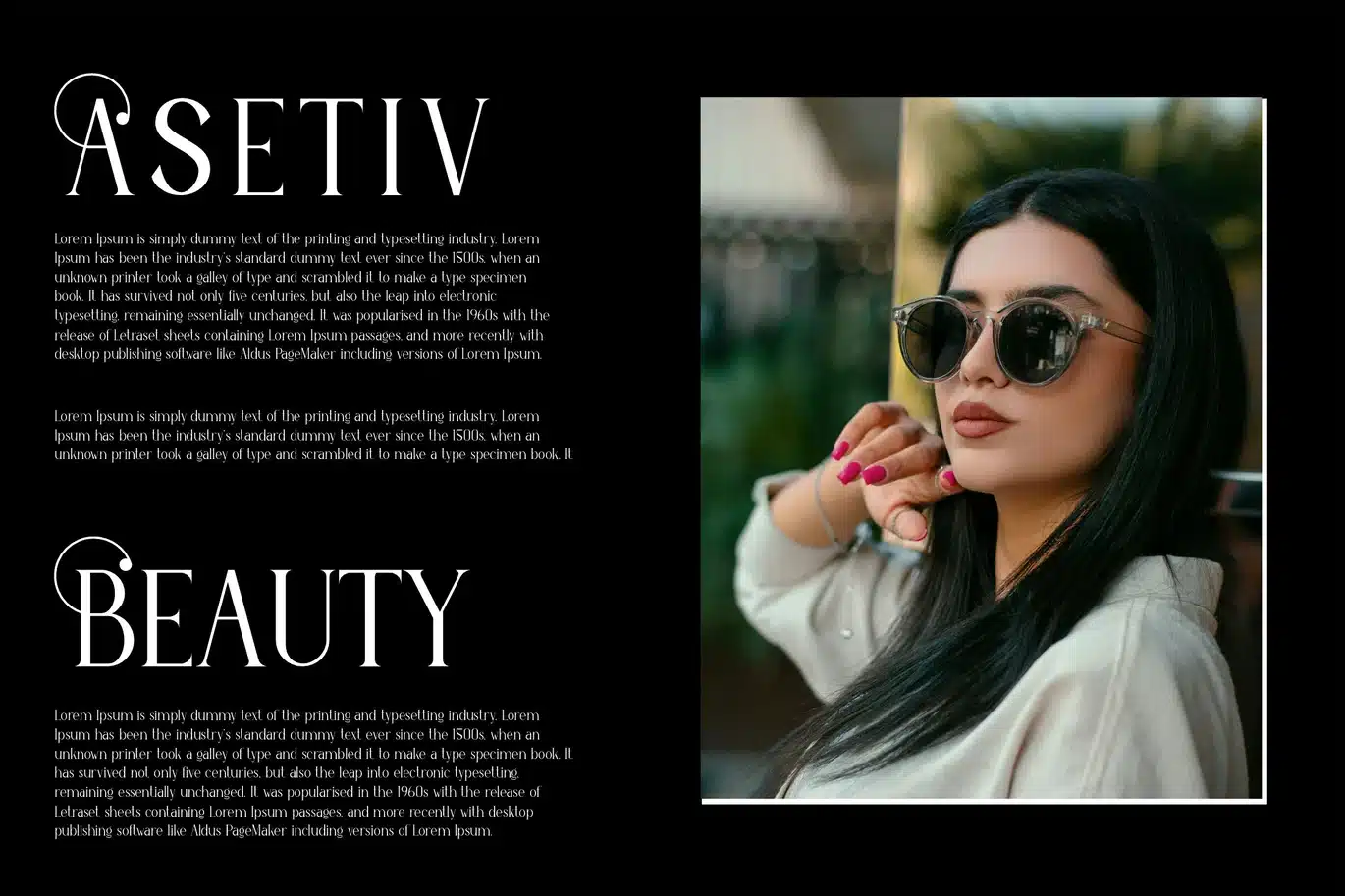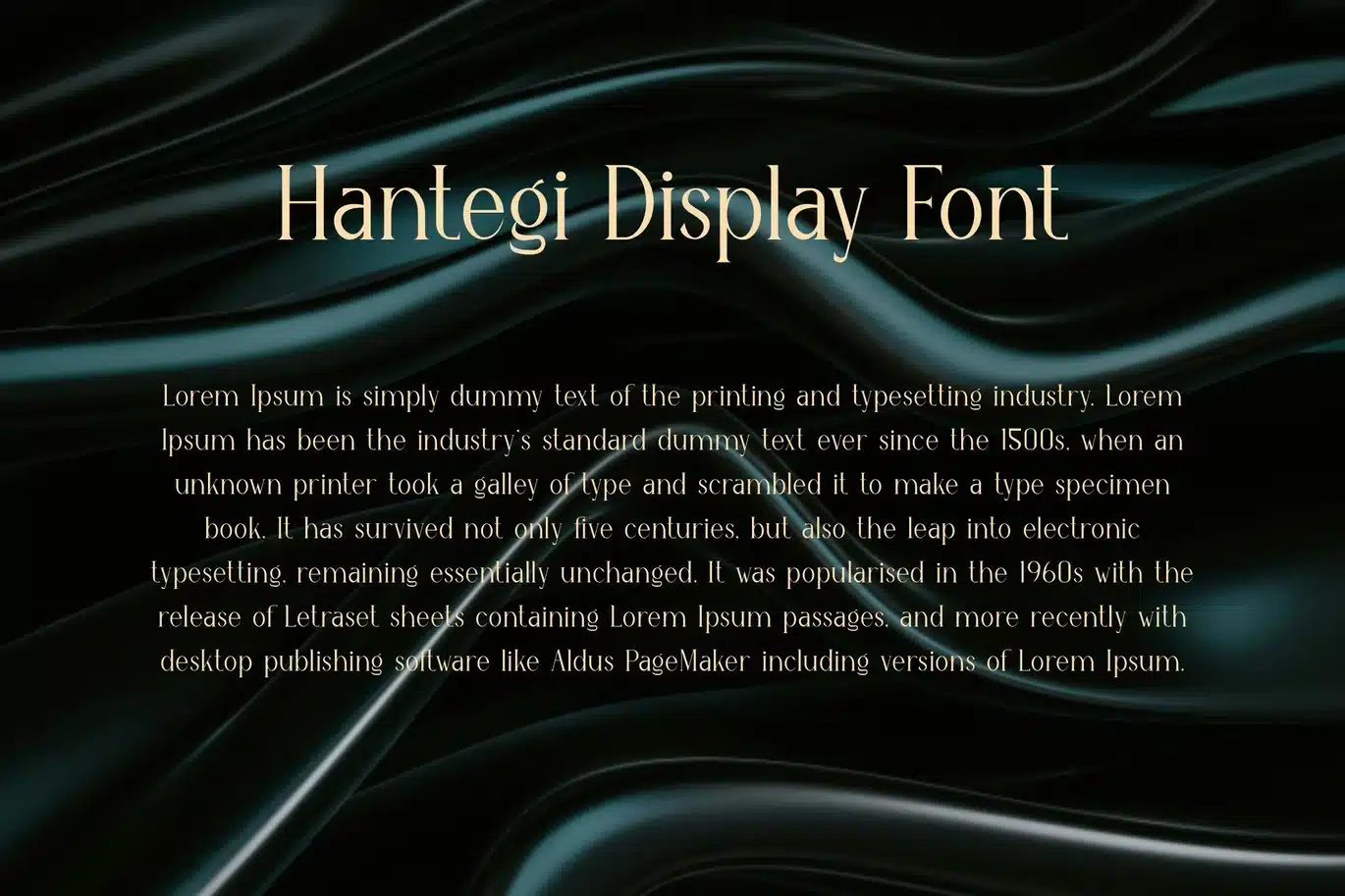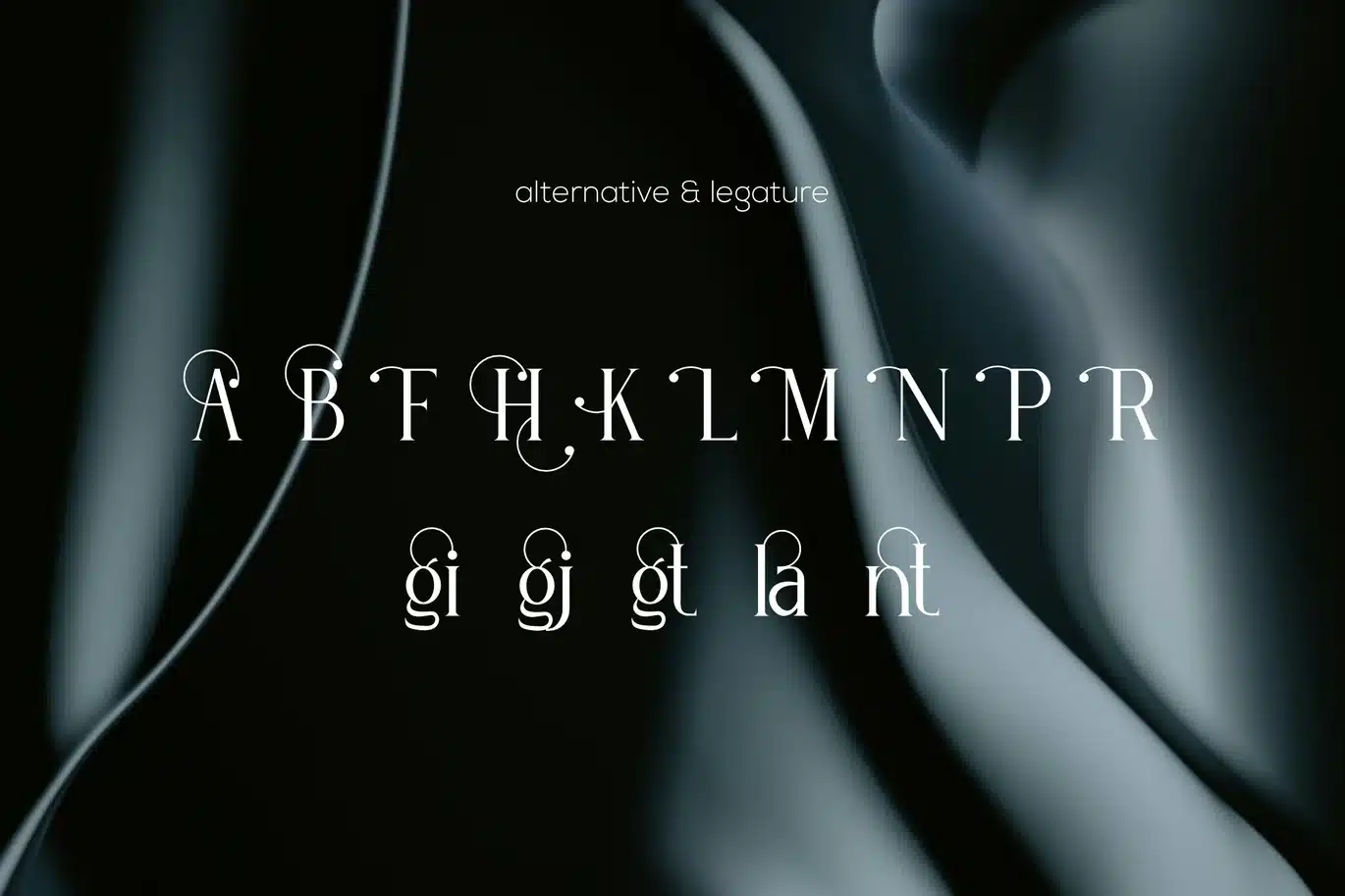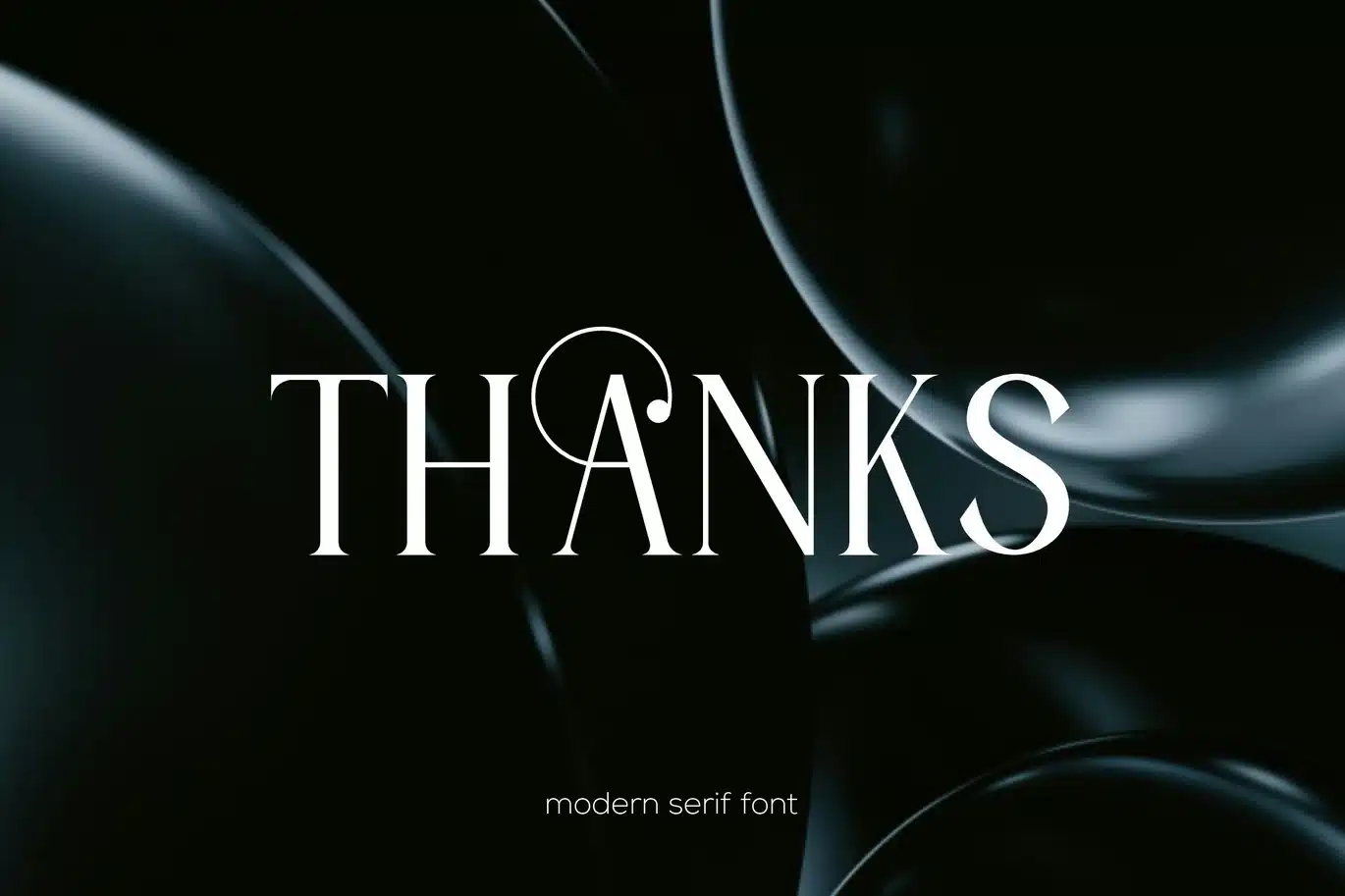
Hantegi – Serif Display Font
Introducing our new product Hantegi - Serif Display Font
Hantegi - Serif Display Font is and awesome and authentic display font.
- Number & Symbol
- UPPERCASE, lowercase
- Legature & Alternative